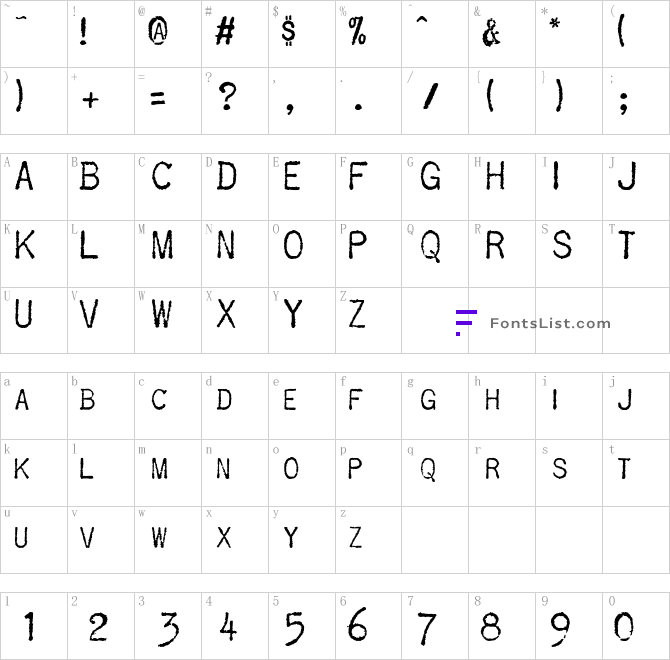
- Font Name:AL OldRemington
AL-OldRemington.ttf is a very beautiful artistic font, AL-OldRemington.ttf is widely used in the design and printing of various books and pictures,AL-OldRemington.ttf has a strong visual impact,AL-OldRemington.ttf is a commonly used font in newspapers, magazines and books, and is used in posters, e-commerce Poster design, store design, logo design, font design and other fields.AL-OldRemington.